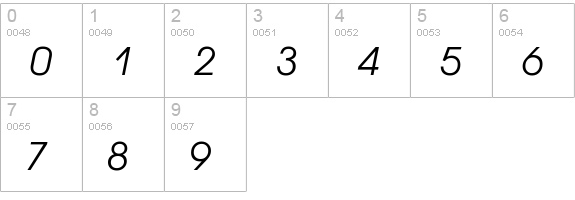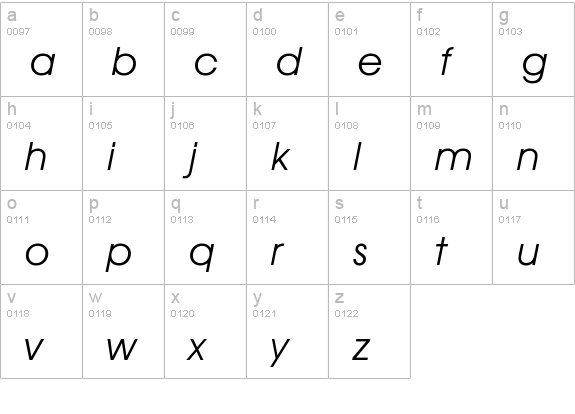
Avant Garde Book Oblique BT is a comfortable, highly readable, italic variant in the Avant typeface family \xE2\x80\x94 well suited to long-form body text, articles, and editorial content.
Avant Garde Book Oblique BT font is a stunning and unique typeface that pushes the boundaries of traditional typography. With its bold slanted design and avant-garde aesthetic, this font is sure to make a statement in any design project. The sleek and modern look of Avant Garde Book Oblique BT font is perfect for adding a touch of sophistication and creativity to your work. The best part? Avant Garde Book Oblique BT font is available for free download at FontsMarket.com. Whether you're working on a branding project, designing a website, or creating eye-catching graphics, this font is a must-have for any designer looking to stand out from the crowd. Embrace the avant-garde with Avant Garde Book Oblique BT font and take your designs to the next level.